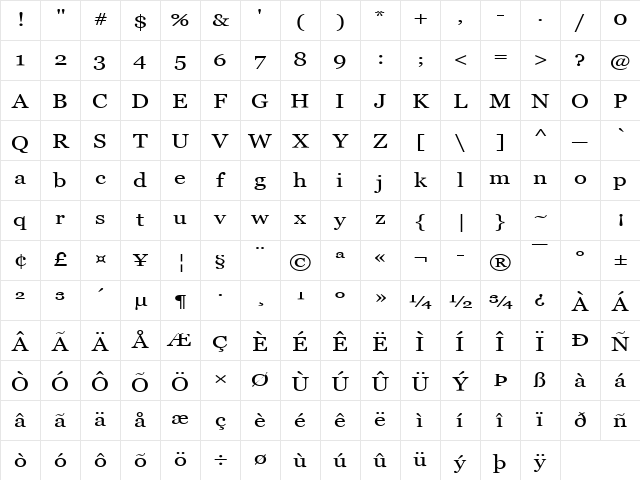
A Perfect Circle Regular
Foundry: Shadavar
Designer: Shadavar
Design Context for A Perfect Circle
A Perfect Circle is a composed and adaptable typeface that performs quietly and consistently across a wide range of design contexts.